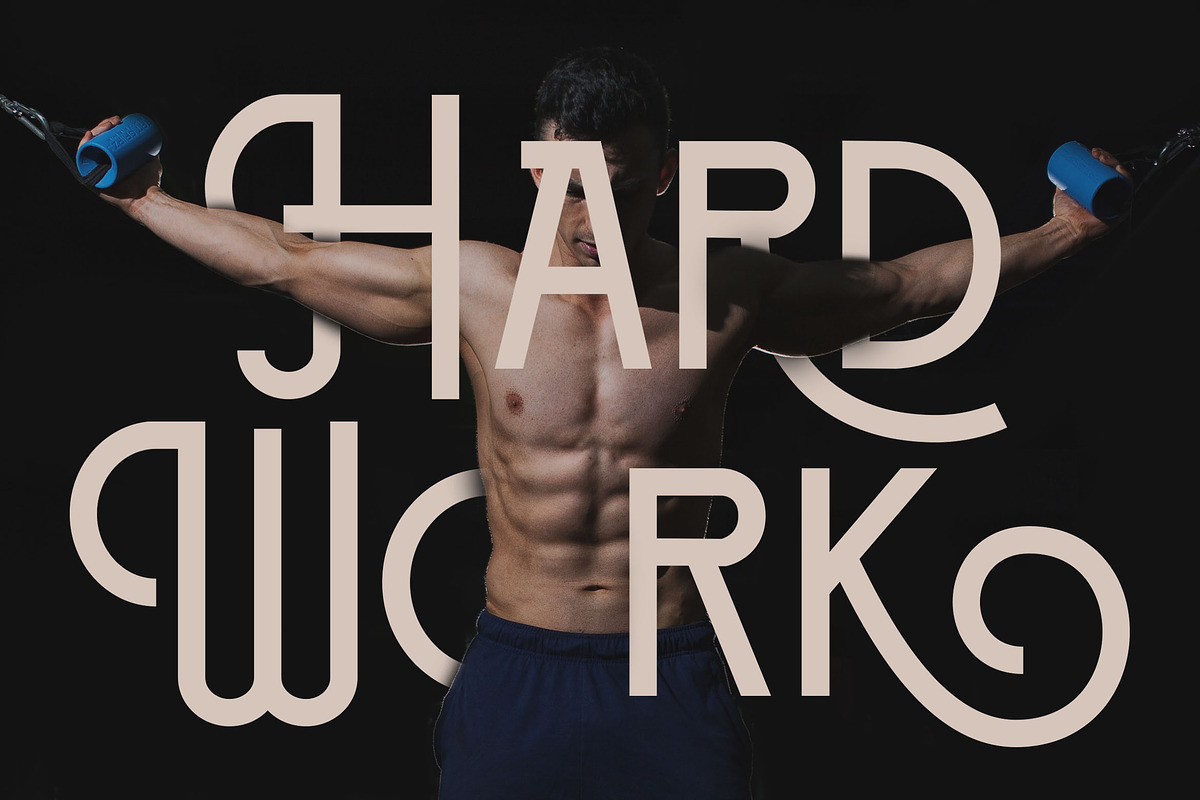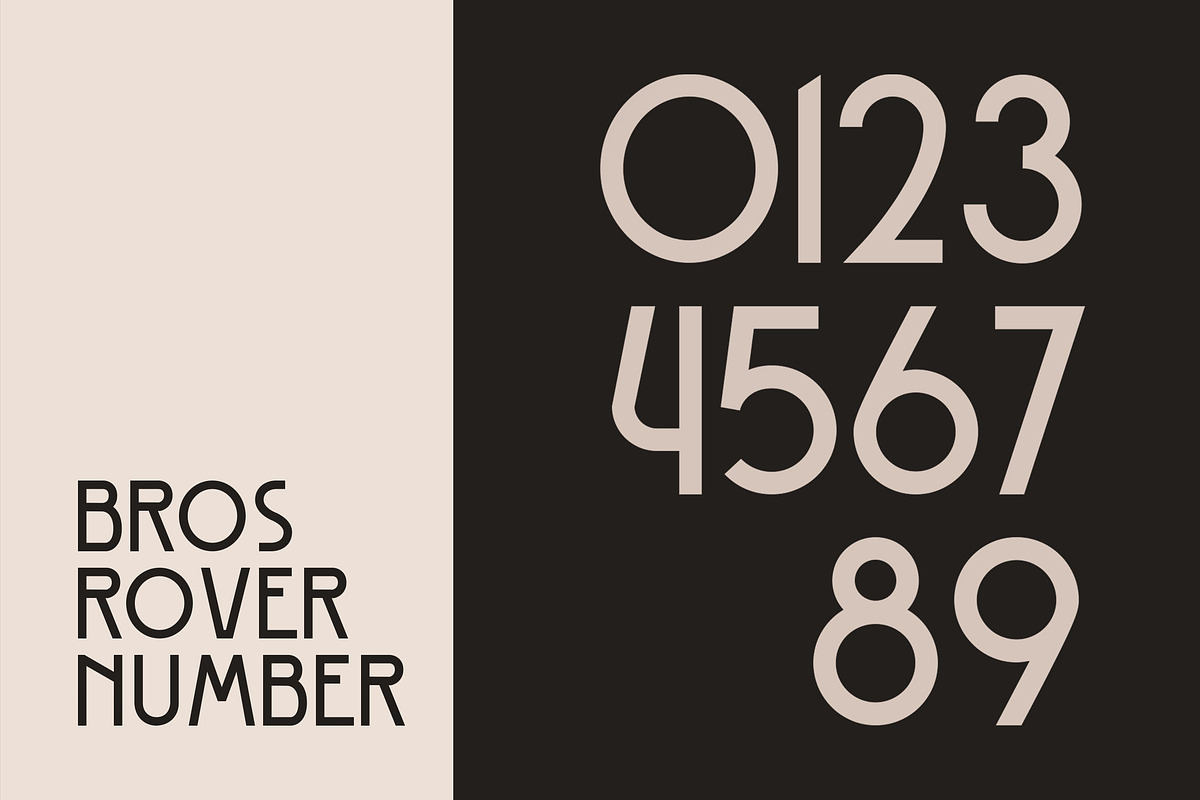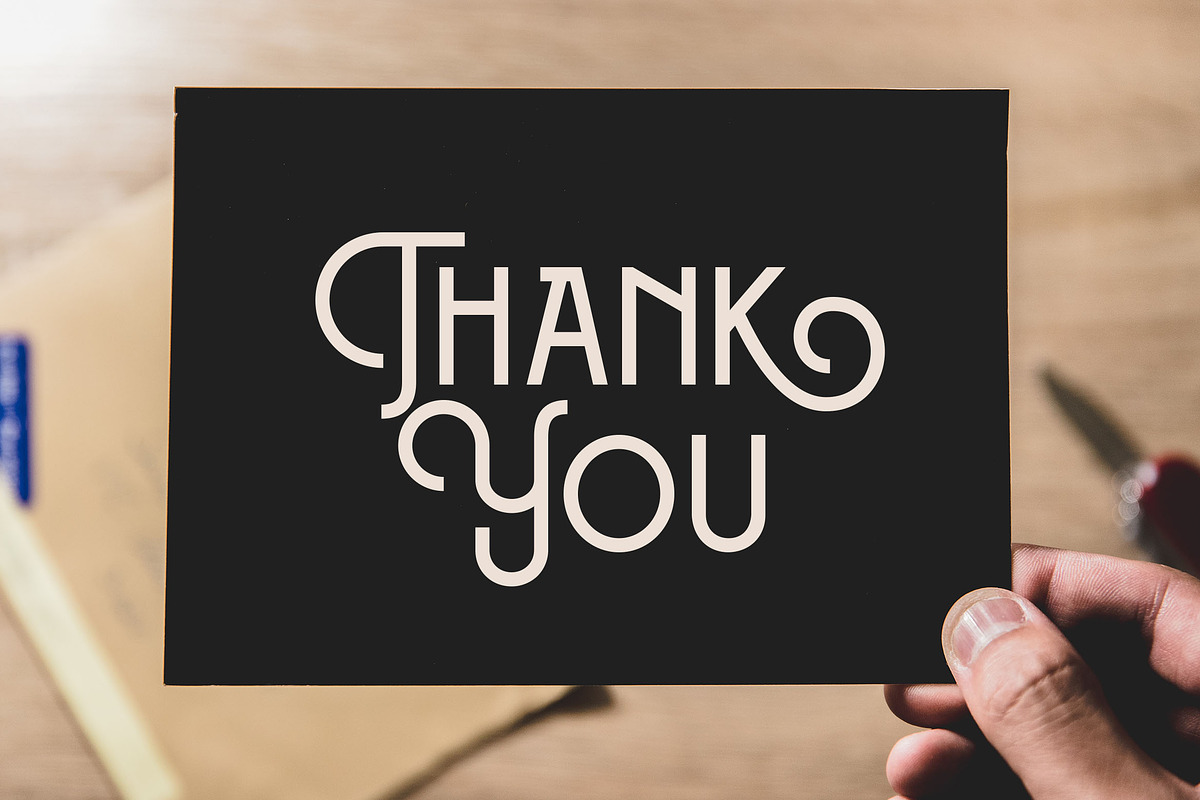
Bros Rover - Classic Sans Serif
Introducing a new font is Bros Rover Classic Sans Serif. Bros Rover good for logotype, poster, badge, wedding invitation, book cover, tshirt design, packaging and any more.
MULTILINGUAL ACCENT :
ŽžŠŒšŸÀÁÂÃÄÅÆÇÈÉÊËÌÍÎÏÐÑÒÓÔÕÖØÙÚÛÜÝßàáâãäåæçèéêëìíîïðñòóôõöøùúûüýÿ
- Uppercase, Lowercase, Number, Punctuation
- Alternative Character